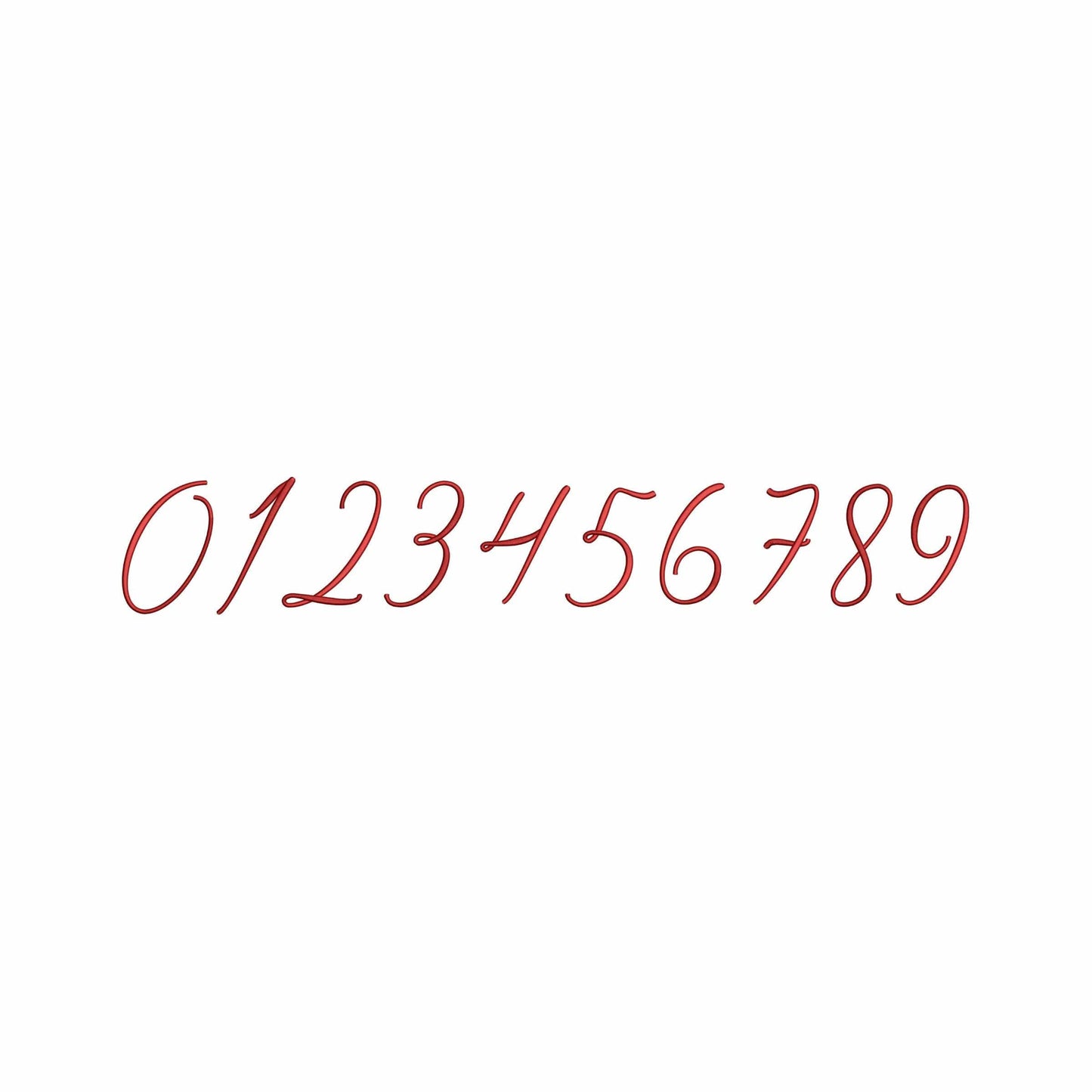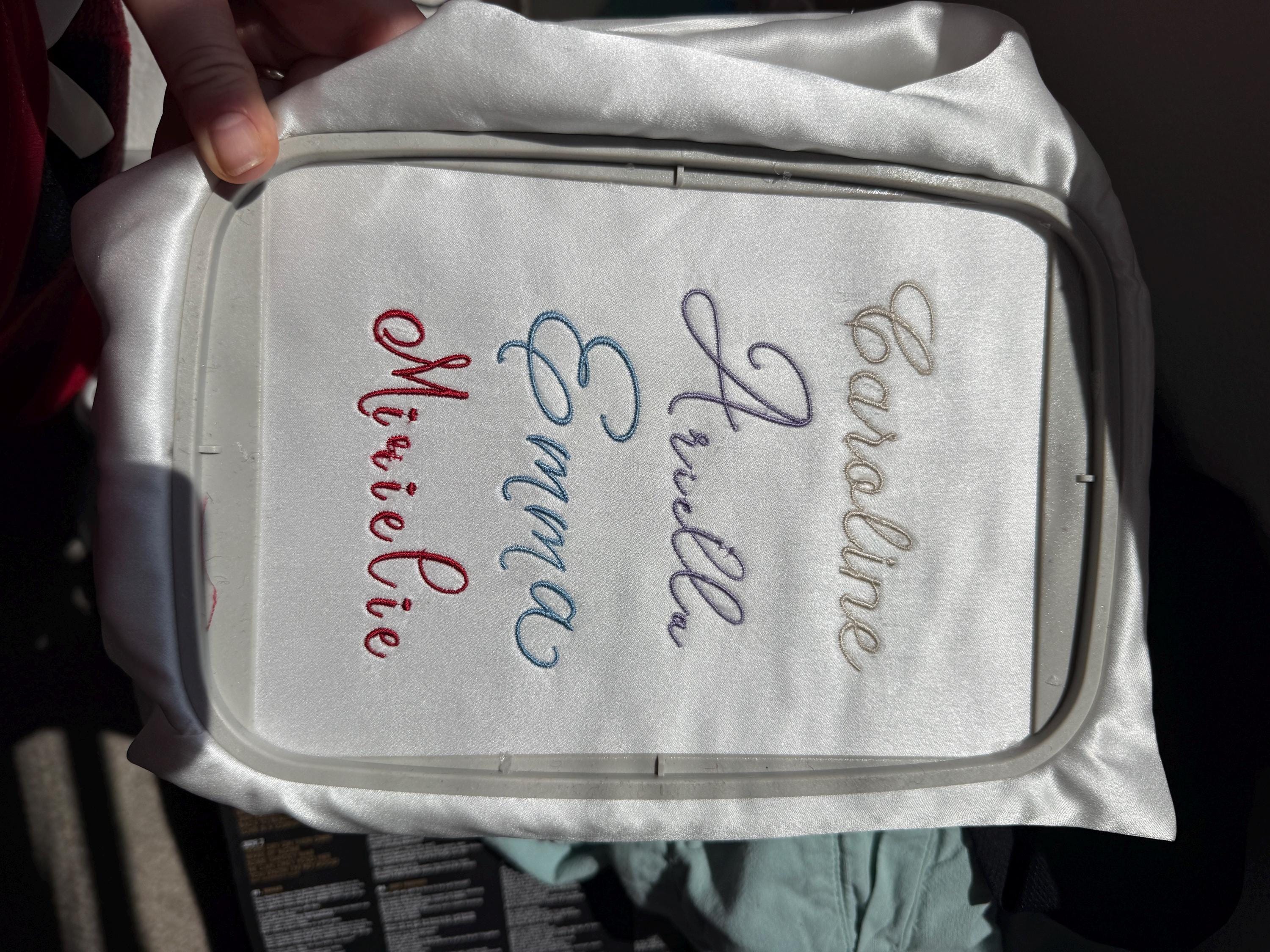
Ariella - Embroidery font
- Included: A-Z (uppercase), a-z (lowercase), 0-9 (numbers)
This machine embroidery font works well for monograms, name shirts, towels, boutique gifts, and graceful personalized embroidery.
A strong choice for makers who want cursive lettering with a feminine handwritten style.